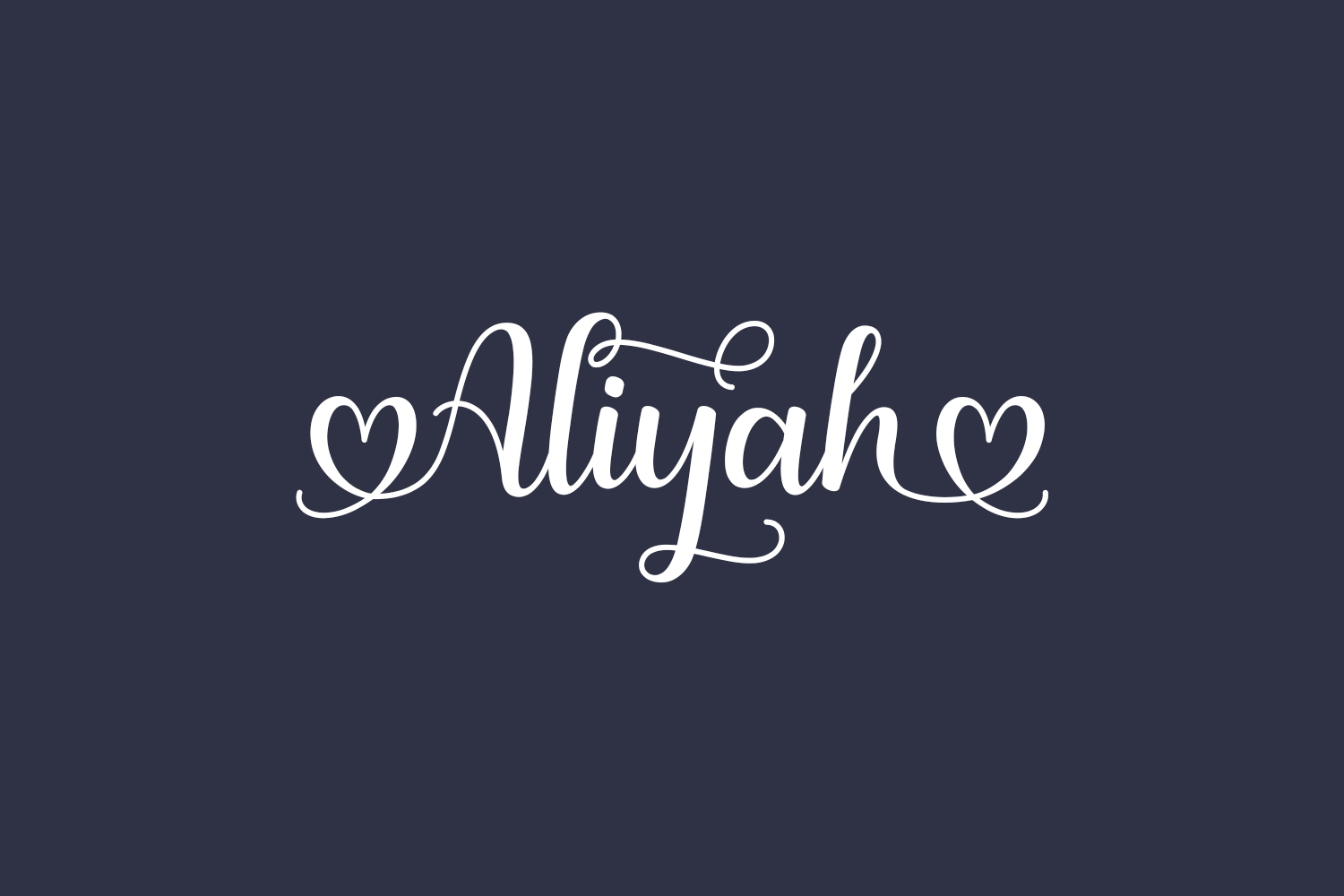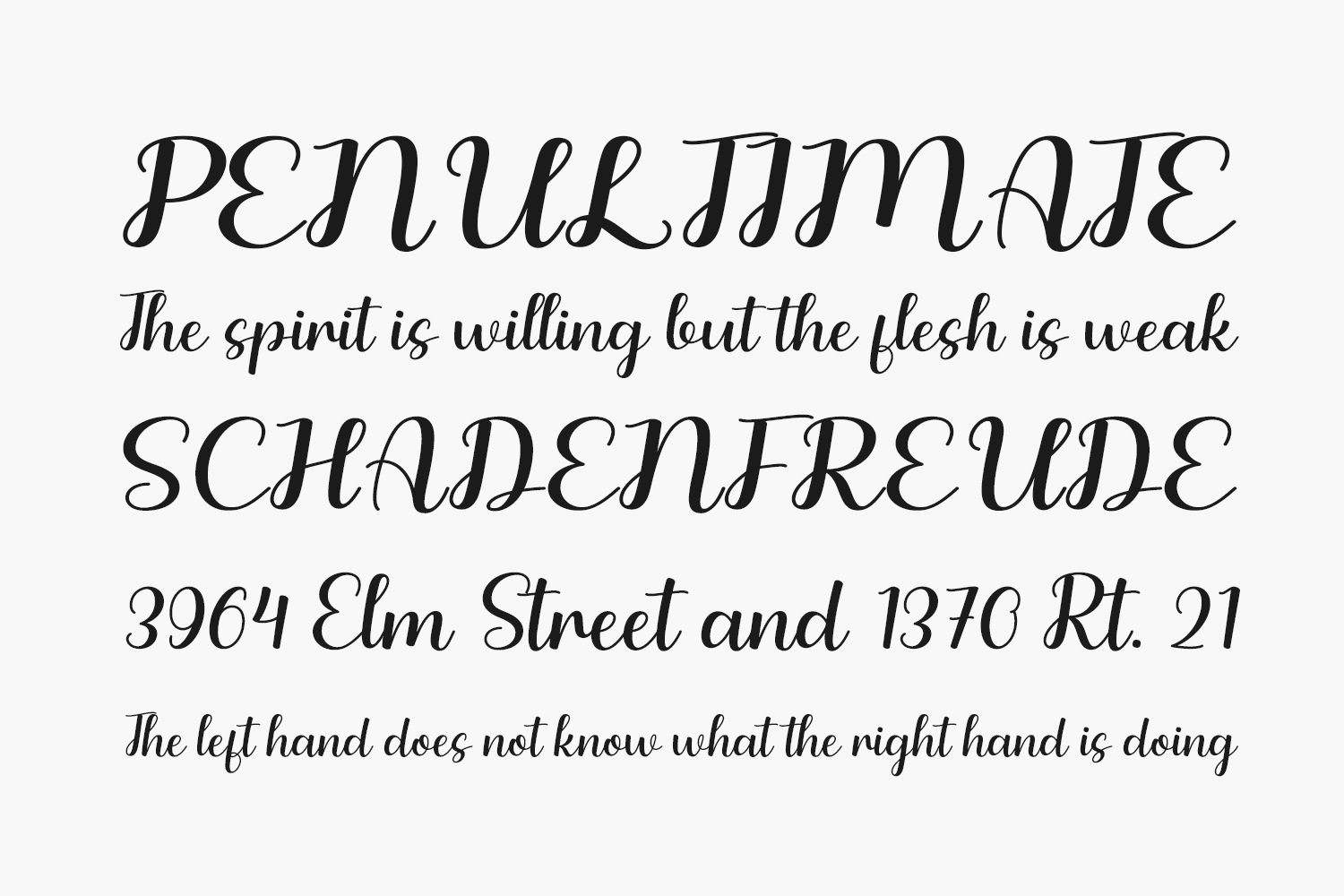
Aliyah Free Font is a lovely script font featuring charming, playful characters that seem to dance along the baseline. Add this font to your most creative ideas, and notice how it makes them stand out. Aliyah Free Font was designed by Hamzah Muhamad Ihsan and is free for personal use only. Please purchase the full version for commercial use.
Designed by Hamzah Muhamad Ihsan